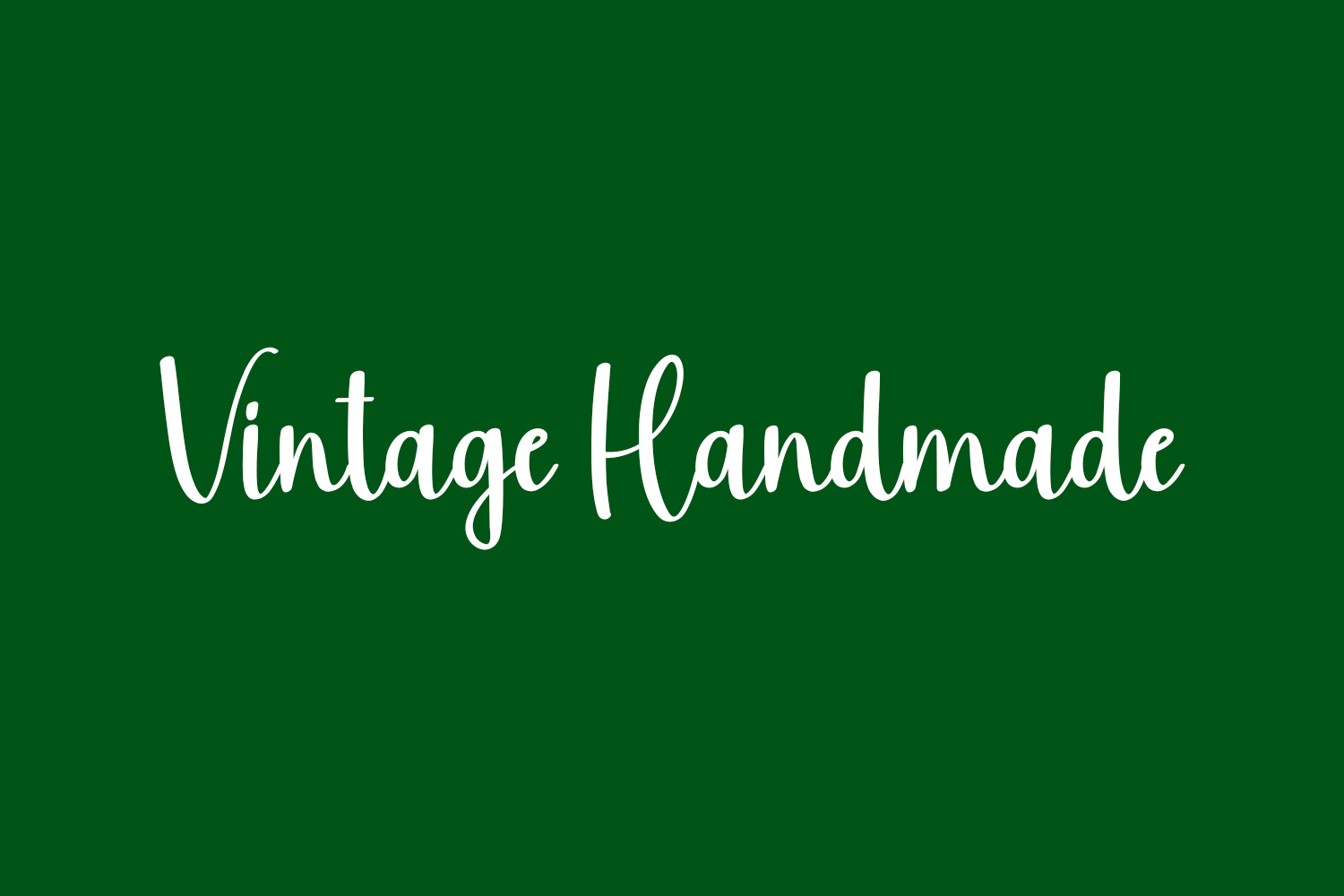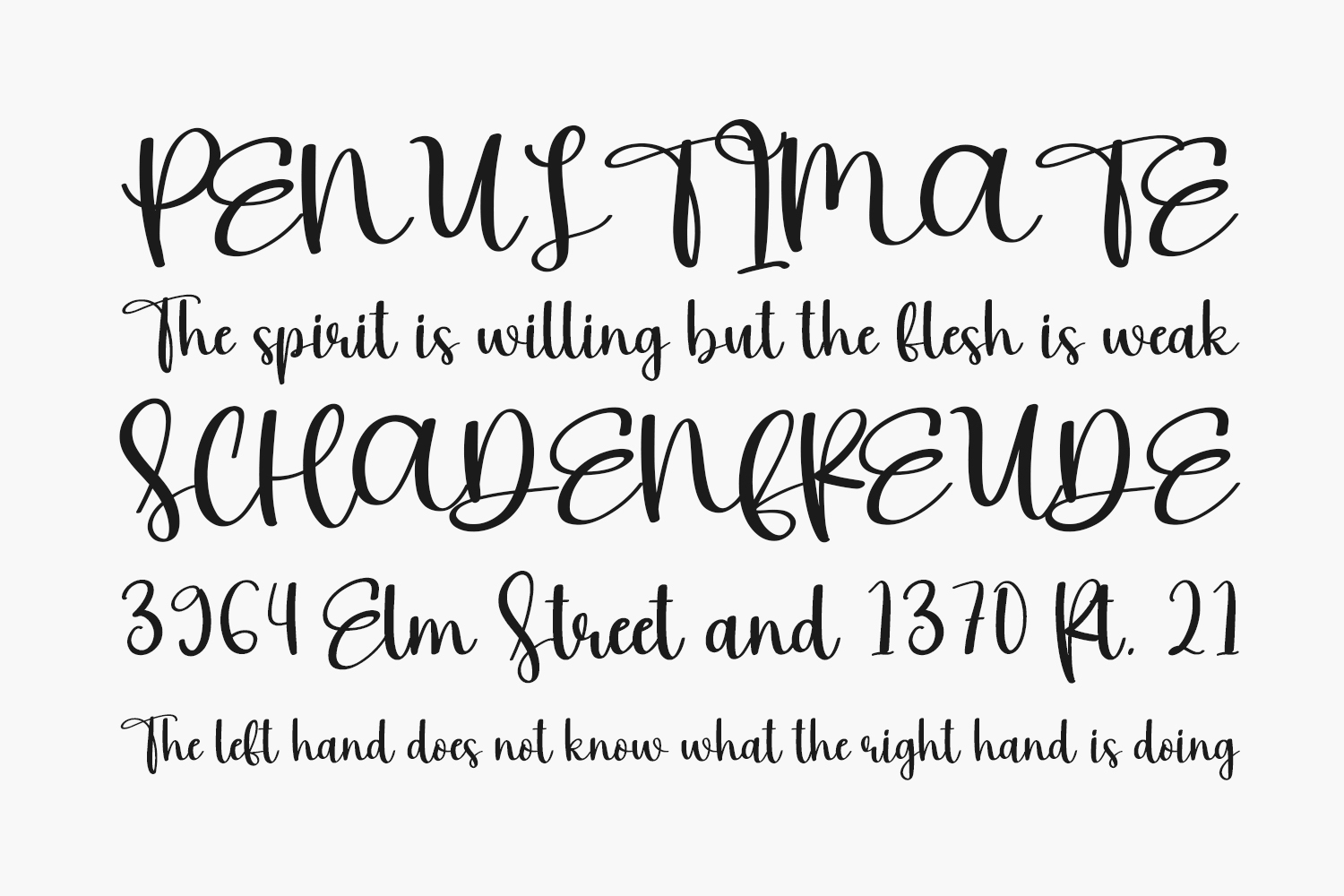
Vintage Handmade Free Font is a delightful and elegant handwritten font. Its charming and cheerful demeanor makes it the perfect choice for crafting wedding invitations, cards, or any design in need of a romantic and personalized touch! Embrace the sweetness of this font and add a touch of nostalgia to your projects. Vintage Handmade Free Font is free for personal use only. Please purchase the full version for commercial use.
Designed by Scratchones